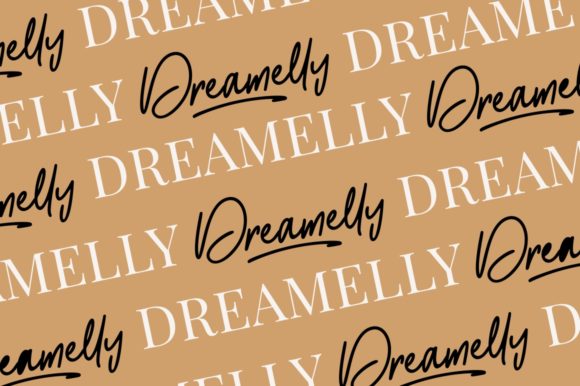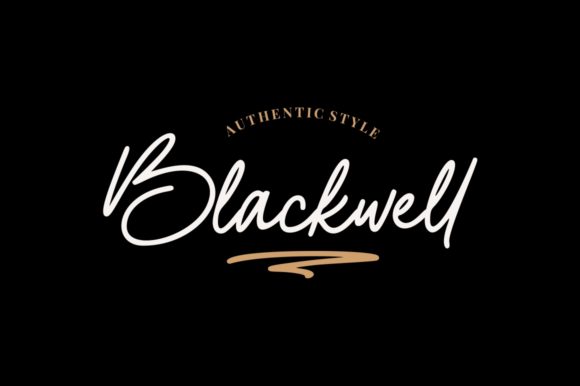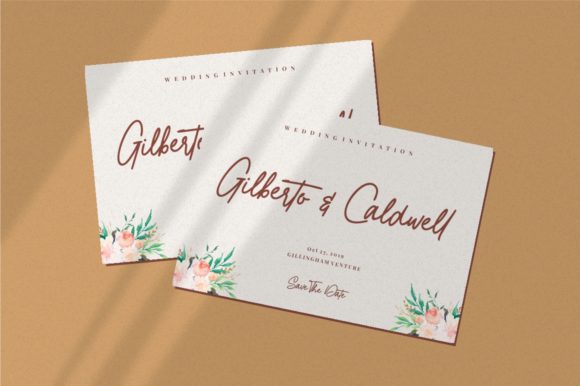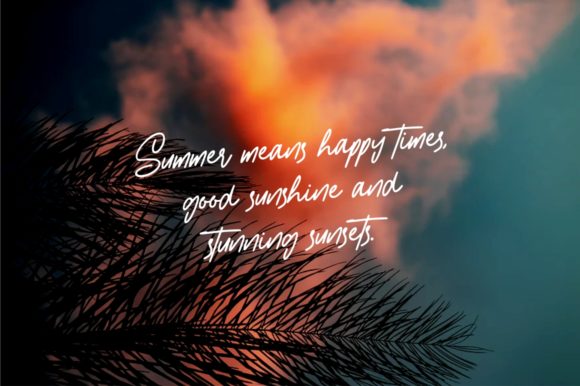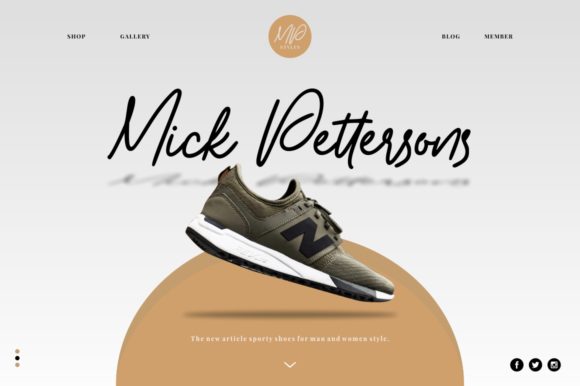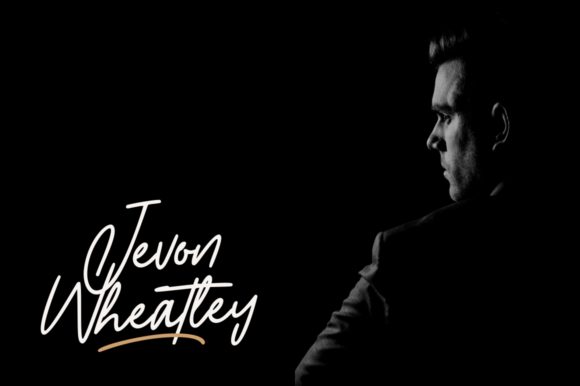
Unlock the Magic of Dreamelly Font
Have you ever been browsing through a vintage bookstore, flipping through pages of old love letters and poetry, and suddenly you’re struck by the whimsical charm of the handwritten script? That’s the kind of magic that the Dreamelly Font brings to your designs. This incredibly sweet and charming script is designed to add a cool feel to your next design idea.
Whether you’re a seasoned designer or a creative enthusiast, the Dreamelly Font is a valuable addition to your toolkit. Its unique blend of elegance and playfulness makes it perfect for a wide range of projects, from wedding invitations to children’s book illustrations. With the Dreamelly Font, you can add a touch of personality and whimsy to your designs, setting them apart from the ordinary.
- Unique Script: Dreamelly Font features a unique, elegant script design with flowing connections and subtle flourishes, making it ideal for creative and artistic projects.
- High-Quality Glyphs: Dreamelly Font includes high-quality glyphs with precise strokes and subtle texture, ensuring a professional and polished appearance.
- Font Weight and Style: The font is available in regular, italic, bold, and bold italic styles, providing flexibility for designers to achieve the desired look and feel.
Dreamelly Font Review
I recently had the chance to work with the Dreamelly font, and I have to say it’s a mixed bag. There are some things that I really like, but also some limitations that hold it back.
- Unique Character: Dreamelly has a distinctive, elegant feel that sets it apart from more common fonts. It’s perfect for adding a touch of sophistication to your designs.
- Readability: Despite its intricate details, Dreamelly is surprisingly easy to read, even at smaller font sizes.
- Customization Options: The font includes a range of stylistic sets and swash variations, which can help you create a unique look for your projects.
- Limited Language Support: Dreamelly only includes support for a limited number of languages, which may make it less useful for international projects.
- Not Ideal for Body Text: While Dreamelly is great for headings and titles, it’s not the best choice for body text due to its relatively small character set and limited line spacing options.
Overall, I think Dreamelly is a solid choice for designers who want to add a touch of elegance to their projects. However, it’s not a one-size-fits-all solution, and you should carefully consider its limitations before committing to it.
For best results, use Dreamelly Font in designs where you want to create a playful, cursive look. Experiment with different font sizes and colors to achieve the desired effect.
Dreamelly Font is ideal for:
- Children’s book illustrations and typography
- Food and drink branding (e.g., bakery, cafe, etc.)